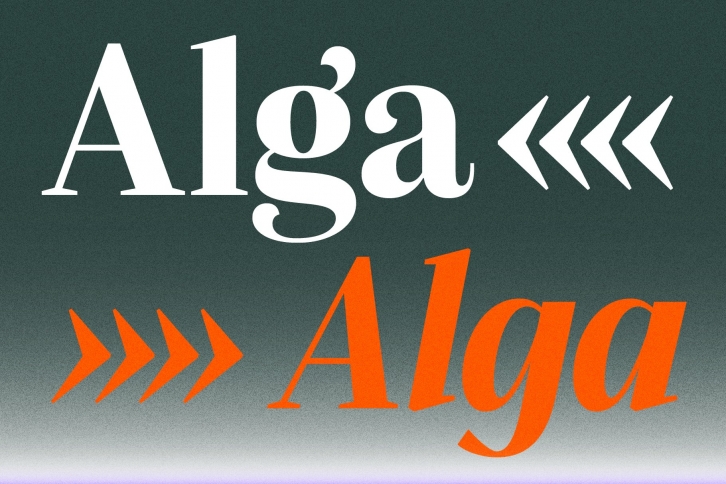
Alga is a high contrast modern typeface with a contemporary look. It has subtle details that make it appealing for big sizes and headlines. It is a lively and charming serif typeface with lots of fancy curves. It is a serif typeface that will shine in headlines and short pieces of text. It also works in smaller sizes, but it is not for the tiny text sizes. Alga started from an exploration of the thinner weight with this idea of a tall and elegant serif typeface with low contrast. Then it evolved to be a high contrast font in the bold weight. But always keeping its style and personality.